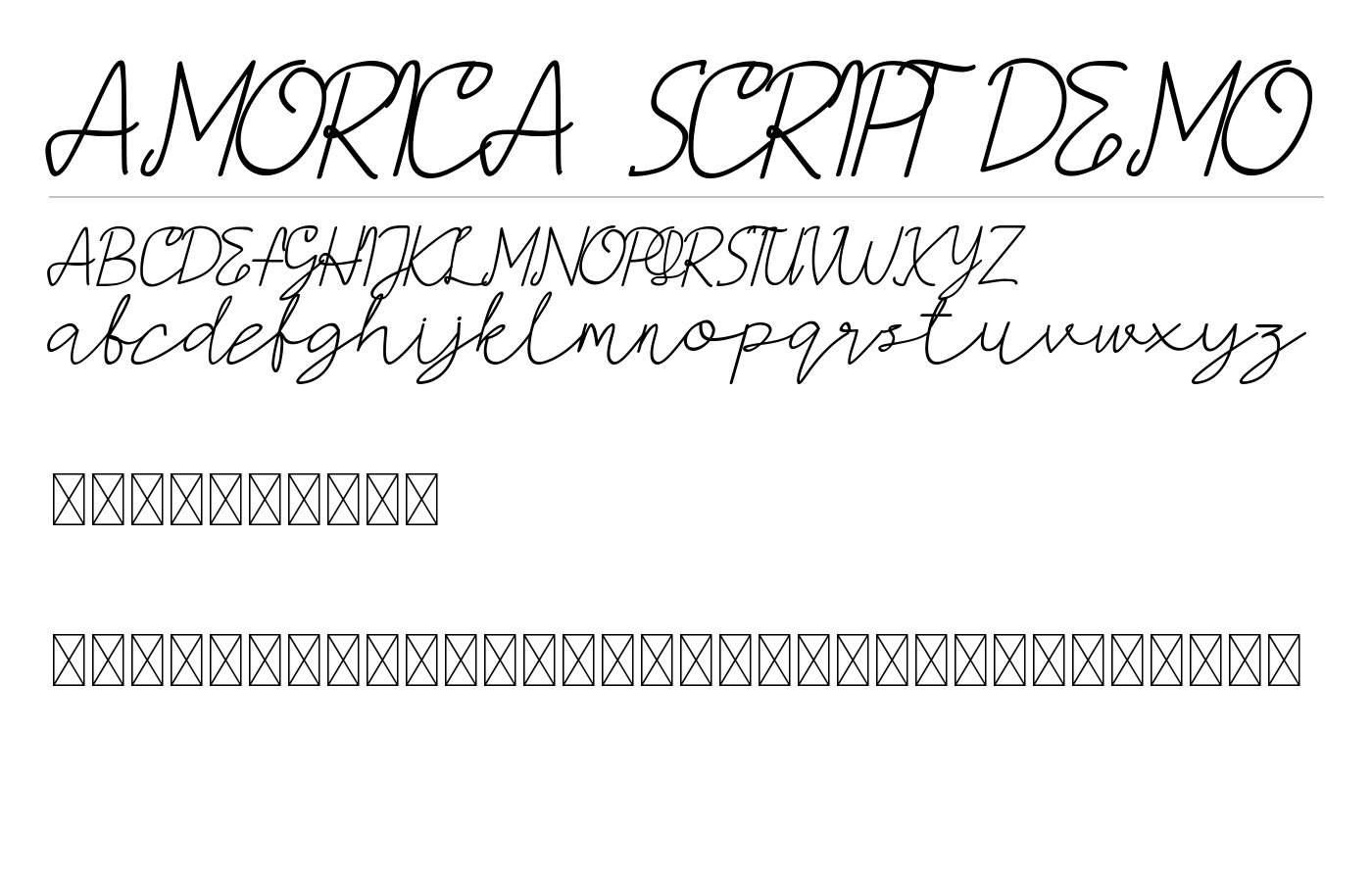
Amorica Script Demo is a delicate, elegant script font characterized by its thin, flowing strokes and graceful, handwritten style. It conveys a sense of sophistication and charm, making it ideal for invitations, branding, and projects that seek a personal, artistic touch. This font works beautifully in headlines and decorative uses where a refined and approachable feel is desired.
AMORICA SCRIPT DEMO Font